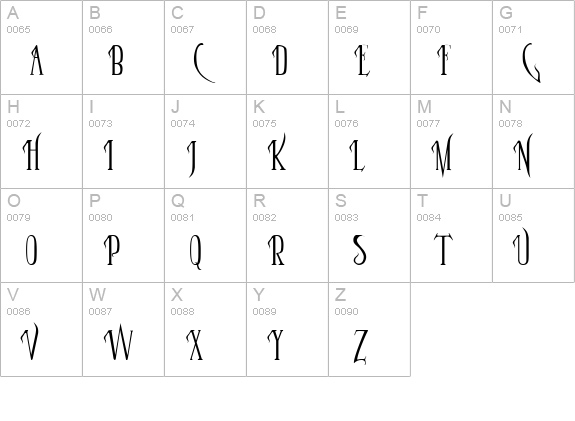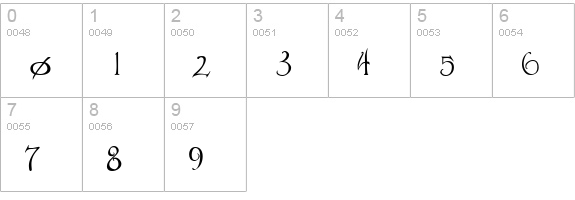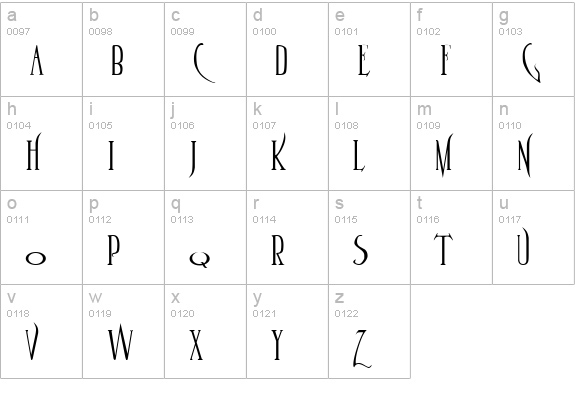
Parseltongue Font Details
Introducing Parseltongue, a captivating and enchanting font that will add a touch of magic to any design project. Inspired by the mesmerizing language of snakes, this font is sure to captivate and intrigue all who encounter it. With its sinuous curves and intricate details, Parseltongue effortlessly embodies the essence of serpentine elegance. But what sets Parseltongue apart is not just its mesmerizing aesthetics. It is also a font that believes in the power of accessibility. That's right, Parseltongue is available to all completely free of charge! Whether you are a designer looking to add a mystical touch to your next project or a fan of the Harry Potter series eager to embrace the language of snakes, Parseltongue is yours for the taking. To make it even easier for you to bring the magic of Parseltongue into your designs, this font is freely available to download at FontsMarket.com. With just a few clicks, you can unlock the secrets of Parseltongue and infuse your creations with an air of mystique and intrigue. So go ahead, embrace the power of Parseltongue and let your designs slither into a realm of enchantment. With its free availability and mesmerizing charm, Parseltongue is the perfect choice for those seeking to add a touch of magic to their creative endeavors. Get ready to cast a spell on your audience with the captivating beauty of Parseltongue font.